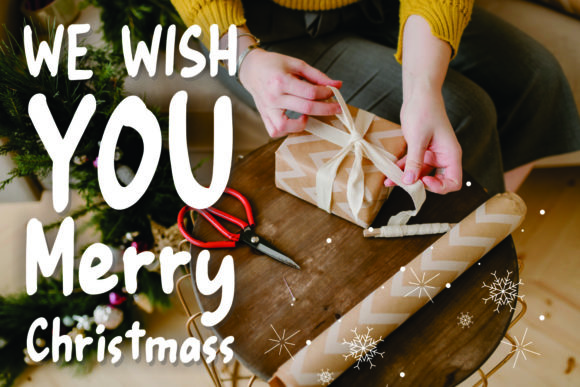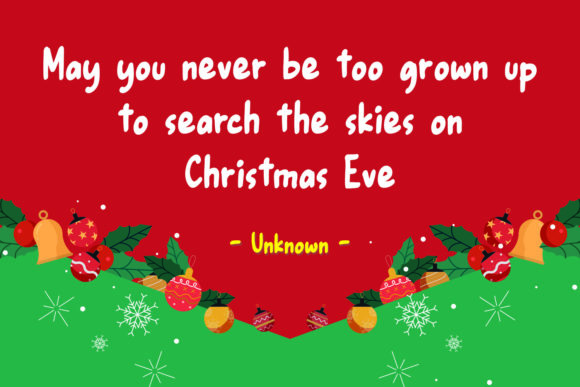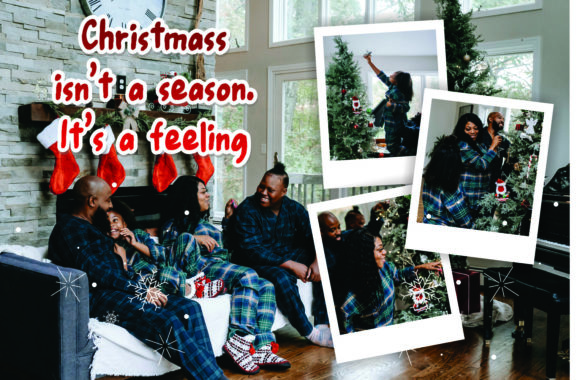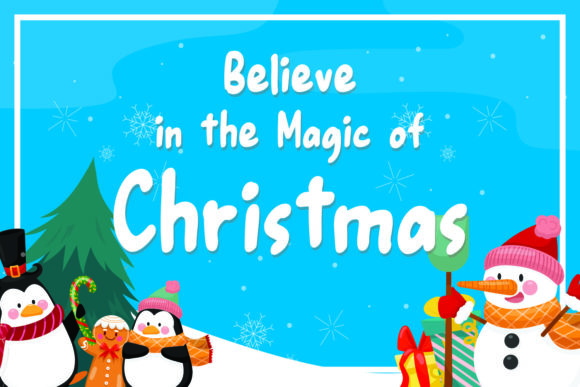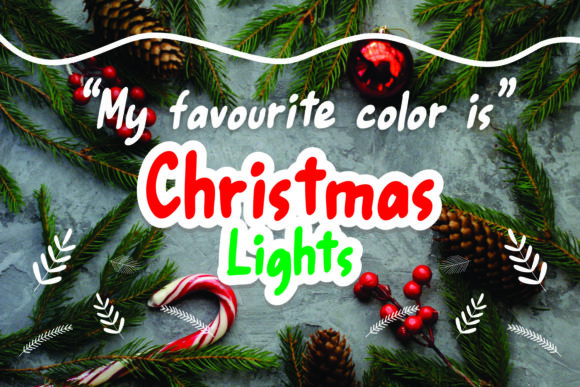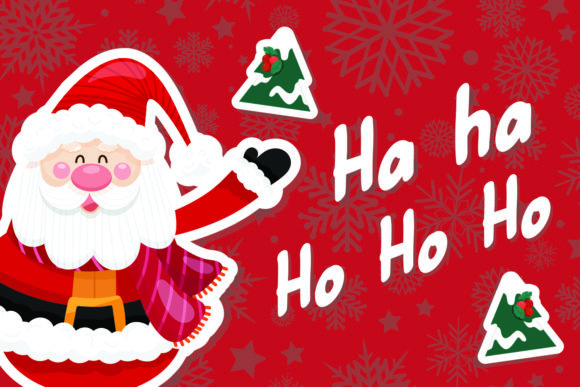
Christmas Jingle Font: A Magical Display Font for Your Holiday Designs
Are you looking for a font that will add a touch of magic to your holiday designs? Look no further than Christmas Jingle Font! This incredibly cool and unique display font is sure to immerse your designs into a magical world, perfect for the Christmas season. With its modern yet whimsical style, Christmas Jingle Font is the perfect addition to any designer’s toolkit.
What Makes Christmas Jingle Font So Special?
Christmas Jingle Font is a one-of-a-kind display font that is sure to make your designs stand out from the crowd. Its modern yet whimsical style is perfect for creating eye-catching holiday designs that will leave a lasting impression on your audience. The font features a unique and playful design, with bold lines and curvaceous shapes that evoke the feeling of festive cheer.
Key Features of Christmas Jingle Font
- Unique and Playful Design: Christmas Jingle Font features a unique and playful design that is sure to add a touch of magic to your holiday designs.
- Modern yet Whimsical Style: The font has a modern yet whimsical style that is perfect for creating eye-catching holiday designs.
- Bold Lines and Curvaceous Shapes: The font features bold lines and curvaceous shapes that evoke the feeling of festive cheer.
- Perfect for Holiday Designs: Christmas Jingle Font is perfect for creating holiday designs, including Christmas cards, decorations, and more.
How to Use Christmas Jingle Font in Your Designs
Christmas Jingle Font is incredibly easy to use in your designs. Here are a few tips to get you started:
- Use it as a Title Font: Christmas Jingle Font is perfect for use as a title font for your holiday designs. Its bold and playful design makes it perfect for grabbing attention.
- Add it to Your Christmas Cards: Add Christmas Jingle Font to your Christmas cards for a touch of festive cheer.
- Use it in Your Holiday Decorations: Use Christmas Jingle Font in your holiday decorations, such as on banners, signs, and more.
Why Designers and Crafters Love Christmas Jingle Font
Designers and crafters love Christmas Jingle Font for its unique and playful design. Here are a few reasons why:
- It’s Easy to Read: Despite its playful design, Christmas Jingle Font is incredibly easy to read, making it perfect for use in a variety of designs.
- It’s Versatile: Christmas Jingle Font is incredibly versatile, making it perfect for use in a variety of designs, from Christmas cards to decorations.
- It’s Fun and Festive: Christmas Jingle Font is the perfect way to add a touch of fun and festivity to your holiday designs.
Christmas Jingle Font is a magical display font that is sure to add a touch of festive cheer to your holiday designs. With its unique and playful design, modern yet whimsical style, and bold lines and curvaceous shapes, it’s the perfect addition to any designer’s toolkit. Whether you’re a designer or crafter, Christmas Jingle Font is sure to become a favorite in your collection.